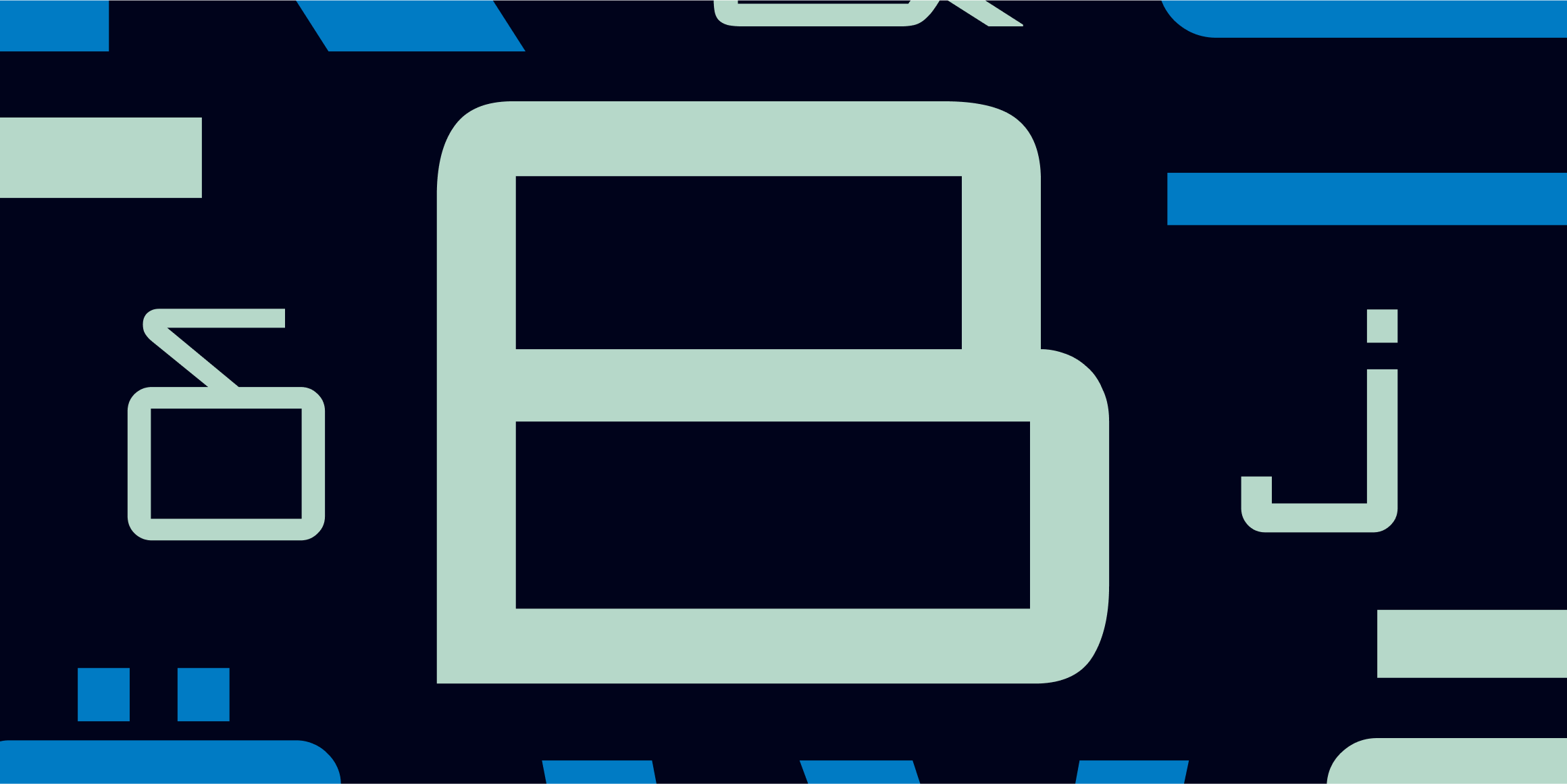
Adapter Tamil
A universal monolinear typeface with contemporary aesthetics. The text oriented styles with a wide range of weights are packed into a single variable font.
- Aadarsh Rajan